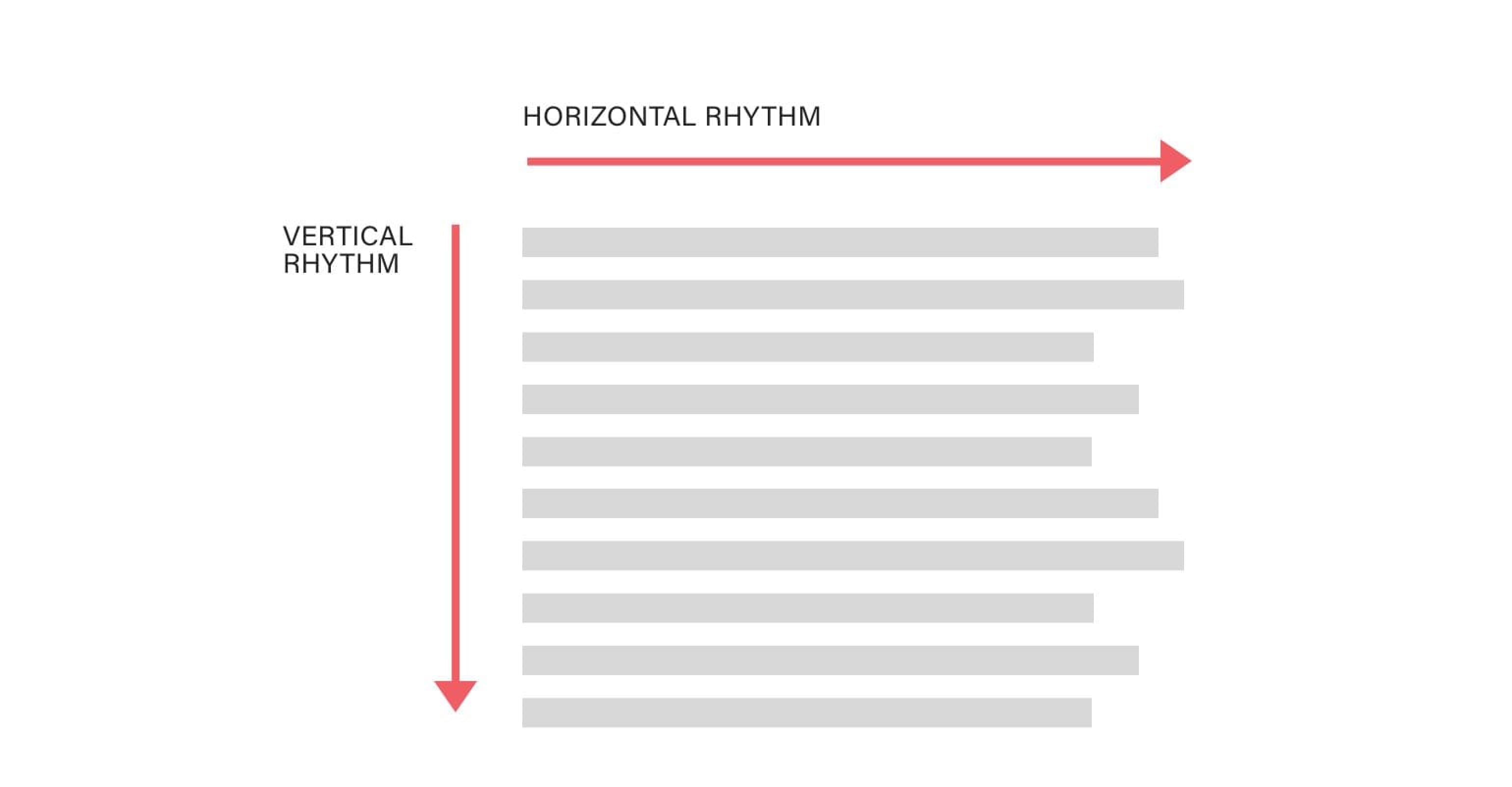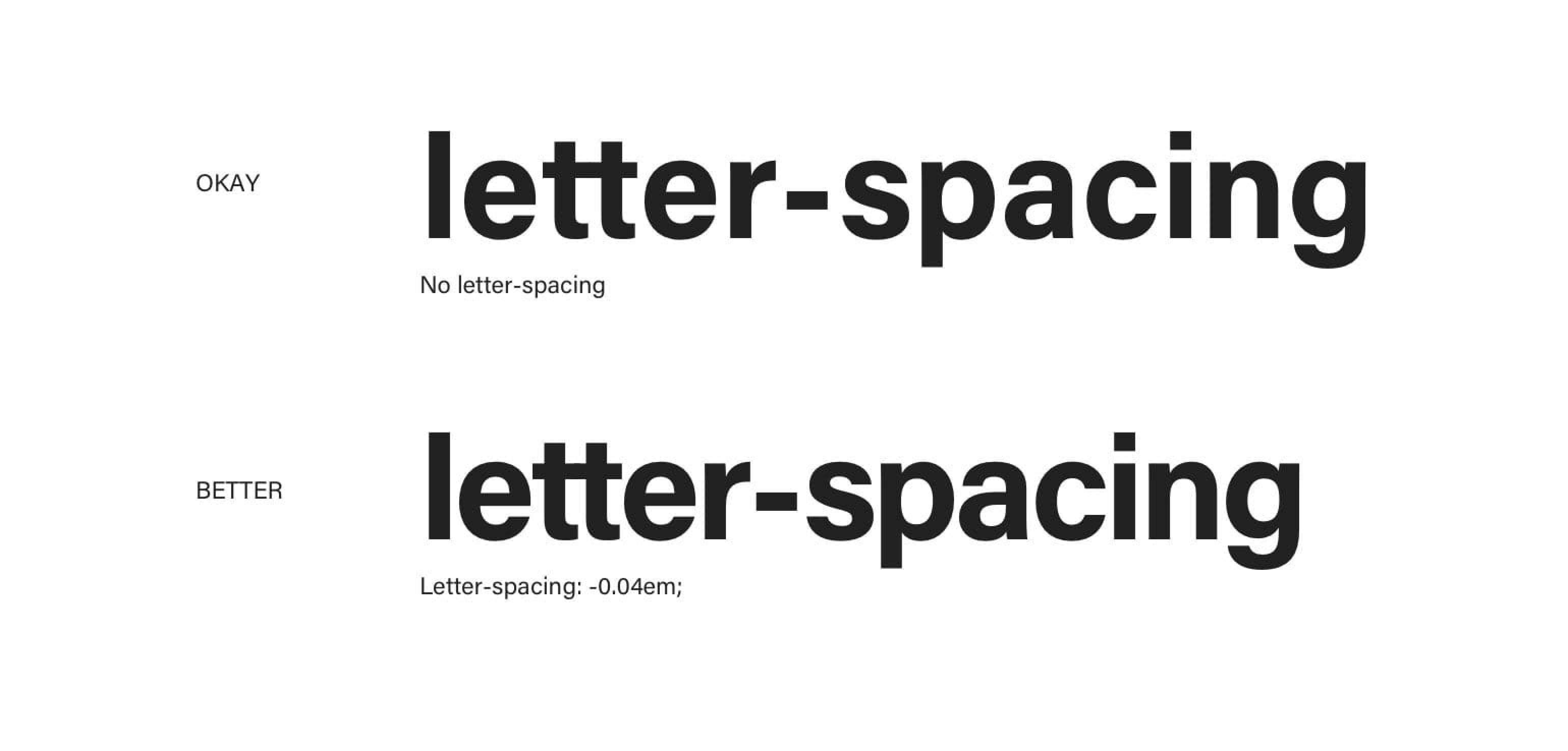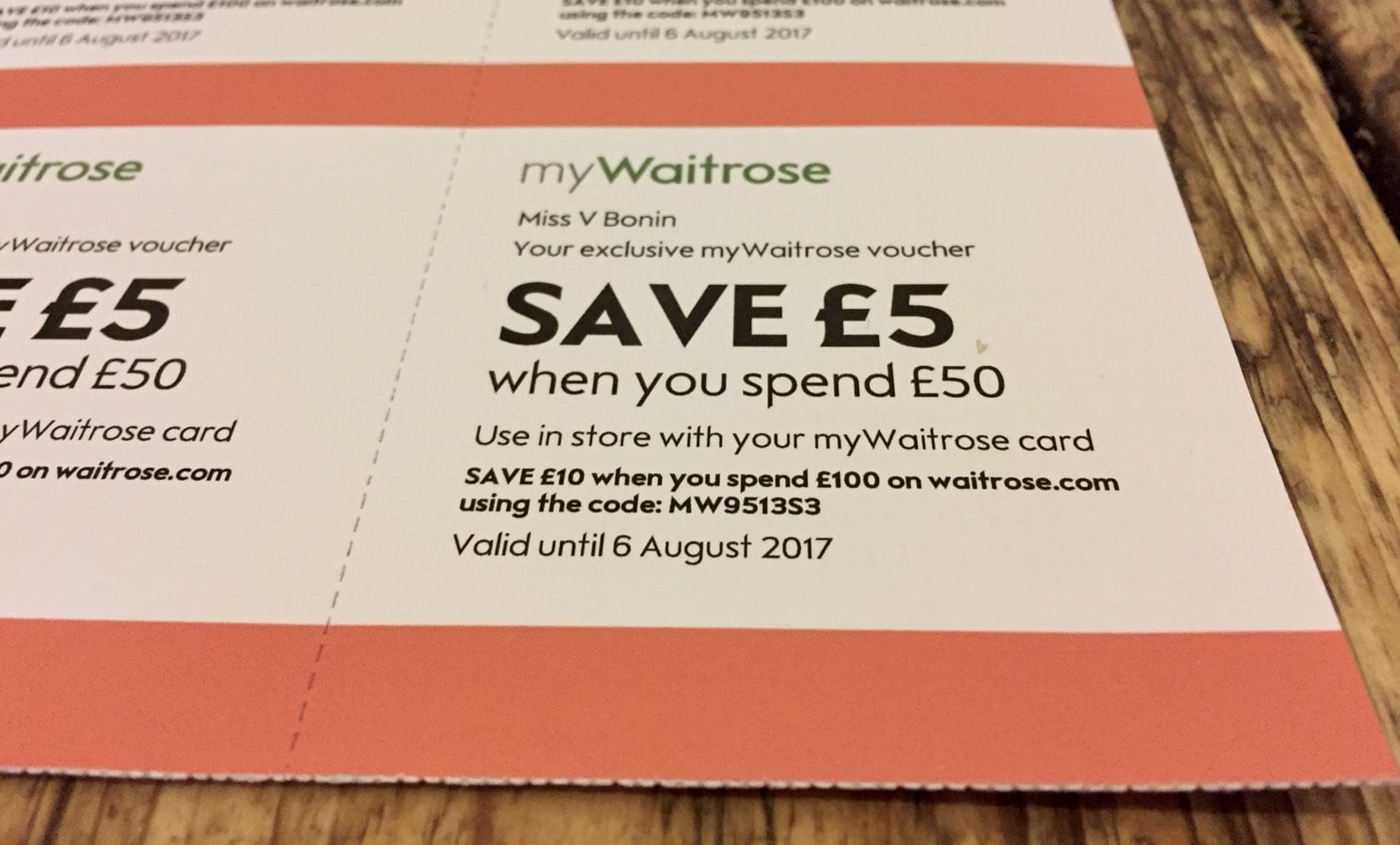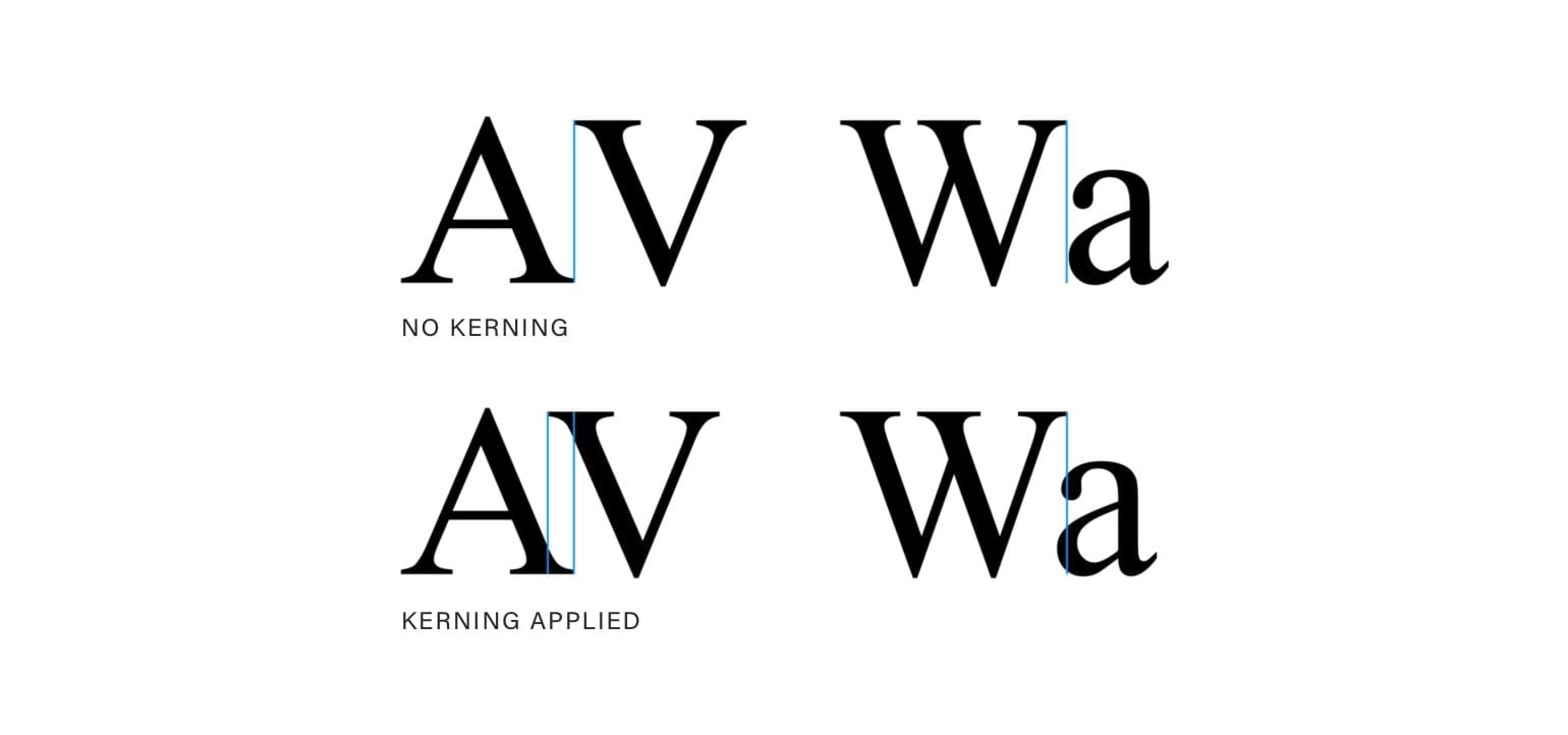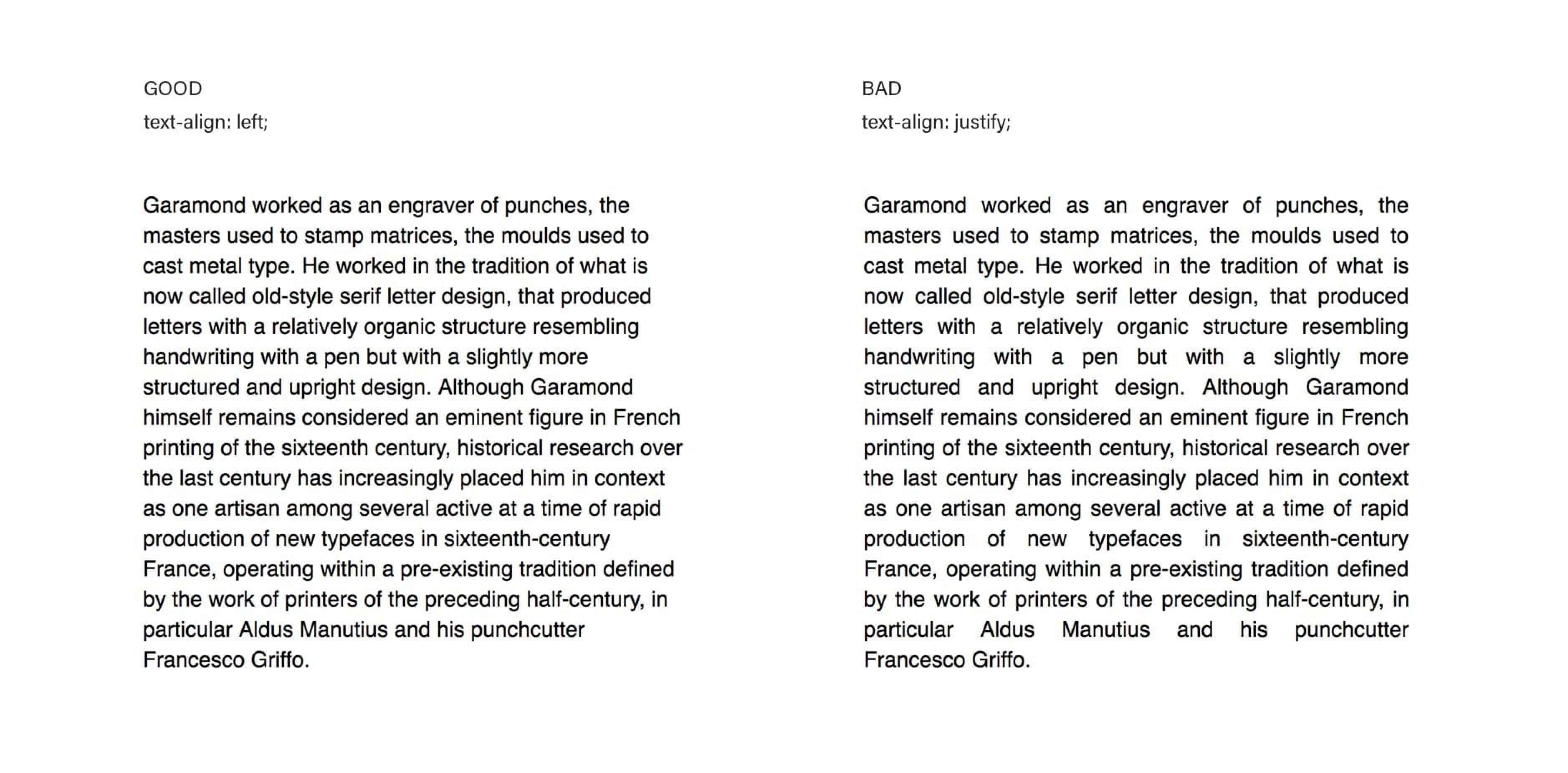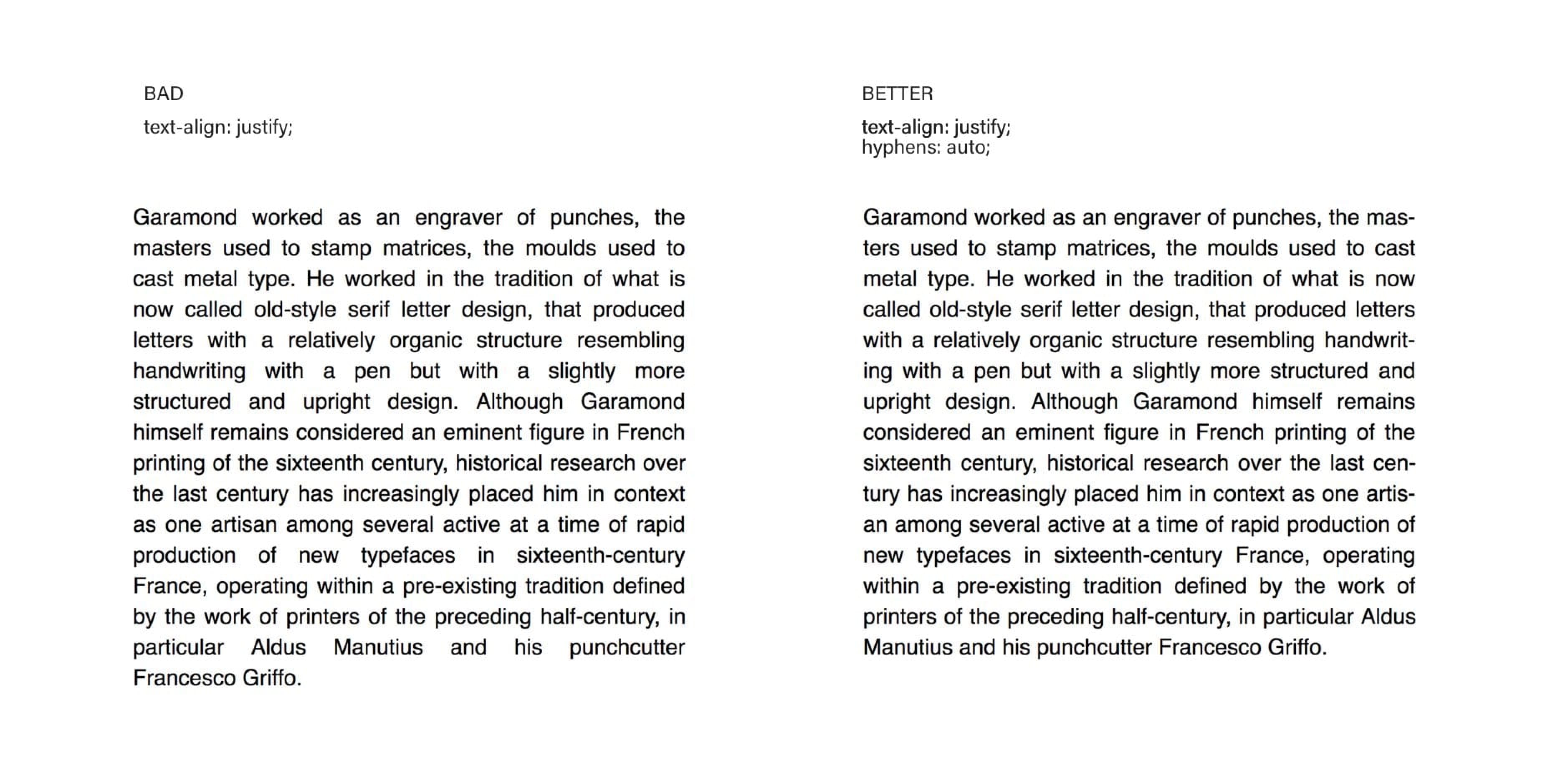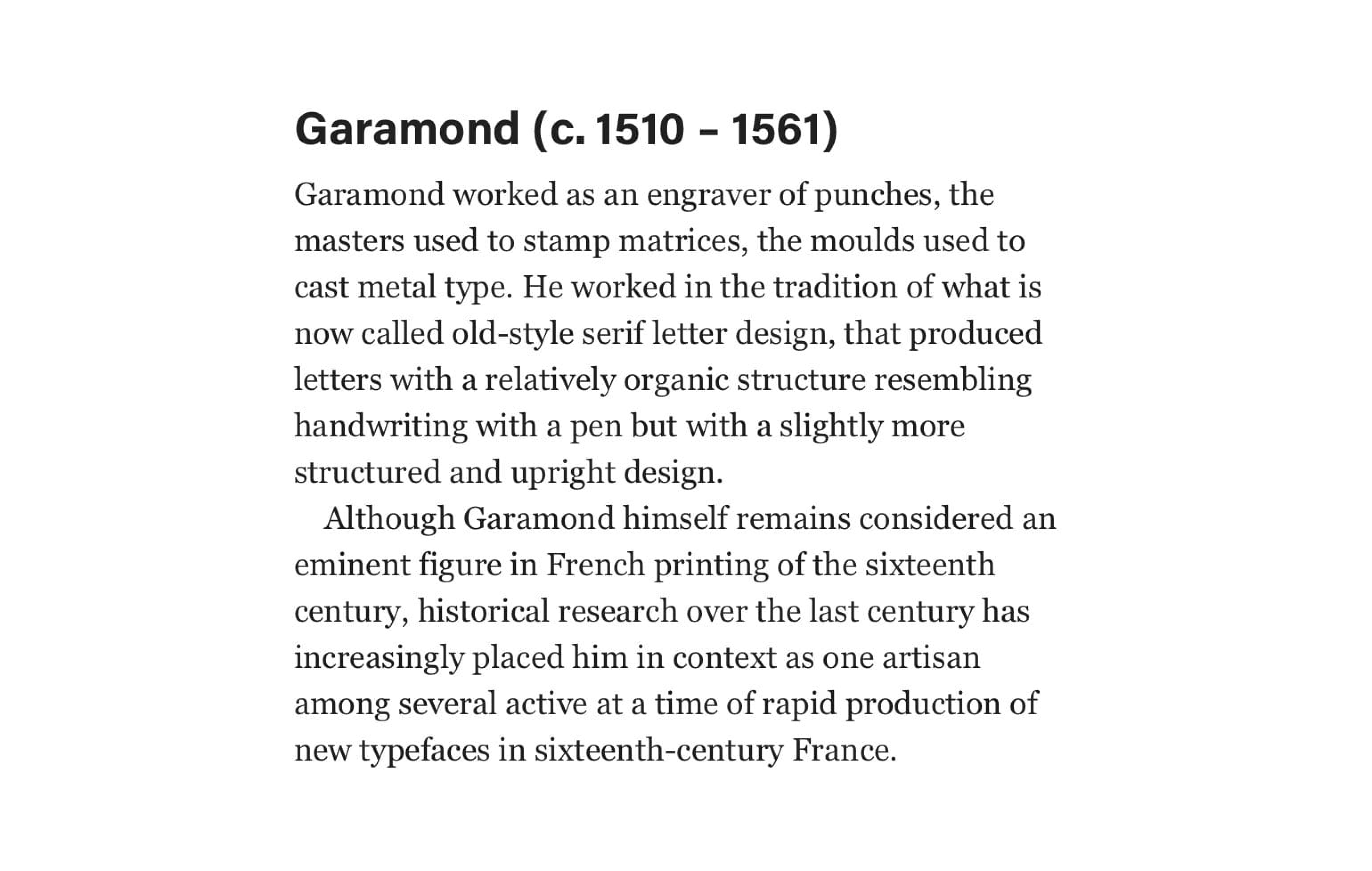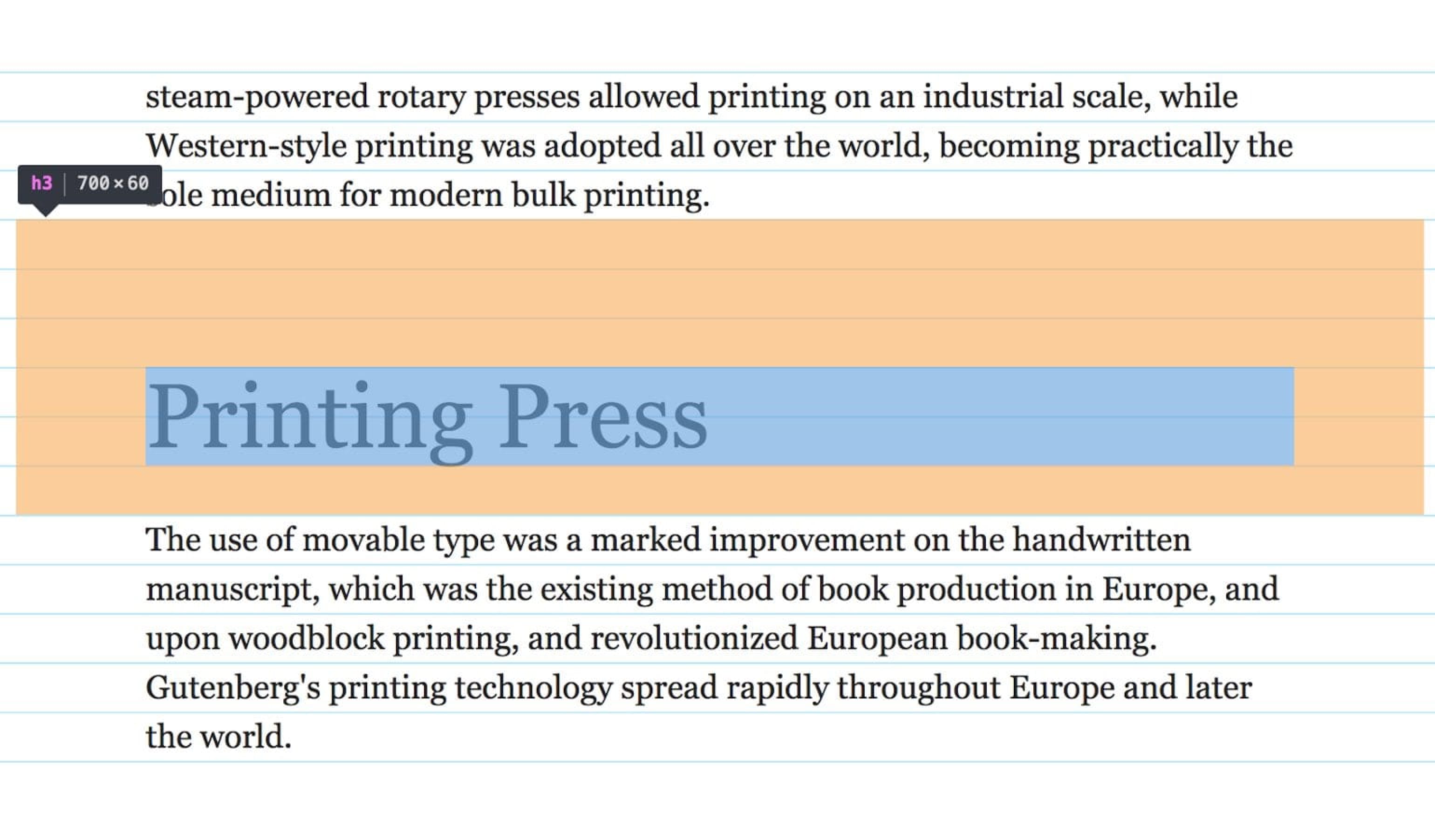
Horizontal rhythm mostly impacts the legibility, while vertical rhythm impacts the readability of the text and establishes a sense of visual hierarchy.
Rhythm in typography is just like rhythm in music. A text can either flow like a masterpiece symphony performed by an in-tune orchestra, or it can be a disjointed flimsy song by a one-man band wannabe. Just like in music, where order is more pleasurable to our ears than chaos, so is a well-designed text with an established rhythm easier to read and more enjoyable to consume by our eyes. Ears and eyes are just the sensory tools; it’s our mind that processes the information. And our mind is a machine for pattern recognition. That’s why a well-tuned, rhythmic and proportional text will always triumph over a scrappy one. But, unlike in music, there are two types of rhythm in typography: horizontal and vertical.
The music analogy works very well with typography, because your text will either be easy to read and the reader will get into flow—not focusing on reading but simply consuming the content —or struggle through the information before finally giving up. Horizontal rhythm mostly impacts the legibility, while vertical rhythm impacts the readability of the text and establishes a sense of visual hierarchy.
Vertical and horizontal rhythm in web typography.
Horizontal Rhythm
Letter spacing (tracking)
Letter spacing is more commonly known as tracking in print design. It can have a massive impact on the legibility of the words, so it should be used with caution. Letter spacing lower case text is not recommended. “A man who would letterspace lower case would steal sheep,” Frederic Goudy used to say. Letter spacing impacts legibility because it makes the words harder to be deciphered by our brain. Reading slows down, even for fast readers. Unless you have a very good reason for doing so, don’t letter space the main body text.
There are two occasions when letter spacing can have a positive impact. Headings tend to be larger and heavier than the body text. Because of their larger size, the spacing between the letters also looks optically larger than at smaller sizes. In this case, it’s a good idea to slightly reduce the letter spacing. We’re talking about 3–5%, not more. This will make your heading a bit more compact, and a bit closer in appearance to the body type.
Applying negative letter spacing to headings makes them more compact and closer in appearance to the body type.
Another occasion where letter spacing can be useful is when applied to small caps or uppercase text only. Using uppercase for longer text is a really bad idea, so this might be best combined with headings again. Whenever we have a line of text set in all uppercase or small caps (we’ll cover small caps in the second part of the book), it’s a good idea to increase the spacing between the letters just a bit. Again, we’re talking about small increases, but just enough to make a difference. My recommendation is from 5 to 10%.
Applying letter spacing to uppercase or small caps helps with legibility.
By doing so, we make the uppercase letters and words easier to read and process because the letters are easier to recognise. Besides that, a bit more space between the letters will add a touch of sophistication to our design. Pay attention to well-designed products or brands that use all uppercase in their branding. You’ll notice that most of them are letter spaced.
Letter spacing acronyms and long series of digits is also recommended, even in the body text.
Kerning
Spacing between different letters is far from equal. Each letter comes with a default set of spacing around it, no matter the neighbouring letter. That’s why we get inconsistencies like this:
Bad kerning, also known as keming. In this particular case it’s so bad that the word “SAVE” seems to be two words “SA” and “VE”.
Kerning—altering the spaces between particular pairs of letters—can resolve these issues. The result is a much better proportioned word and optical perfection. Kerning, unlike letter spacing, changes the spacing around letters depending on their neighbouring letters.
Fixing the bad kerning.
Most web browsers default kerning to auto. This means that the kerning will be enabled for larger type and disabled for smaller. Bad kerning is not as obvious on small type. If you wish, you can control it like this:
That’s about it when it comes to what we can do with the default browser support right now. This is probably not good enough for special occasions when we need to move a particular letter by x pixels to achieve that optical perfection. Thankfully, there are tools like Lettering.js. With it, we can control the positioning (and also style) of each letter.